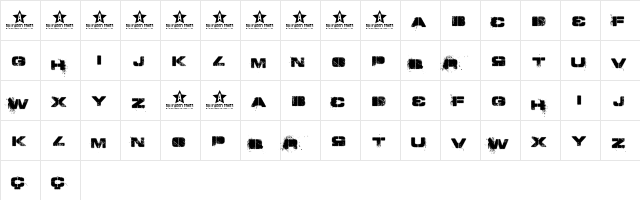
TOY_SOLDIERS Bold
| Foundry | Billy Argel |
| Designer | Billy Argel |
Design Context for TOY_SOLDIERS Typeface
TOY_SOLDIERS draws on military and industrial lettering traditions, with forms that communicate strength and precision. The heavy weight commands attention and anchors typographic hierarchies.
Designed for tactical branding, military-inspired apparel, action game UI, and utility-focused signage.
Font Pairing: Use alongside a condensed or geometric sans for supporting copy — keep the pairing bold, functional, and free of ornament.
Pro Tip: Use TOY_SOLDIERS at medium-to-large sizes where its utilitarian structure can be appreciated — the character detail gets lost at small sizes.